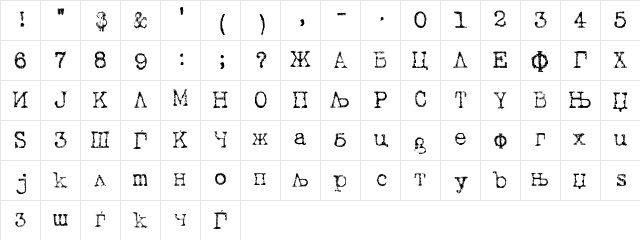
X_Doom Medium
Design Context for X_Doom
X_Doom is a composed and adaptable typeface that performs quietly and consistently across a wide range of design contexts.